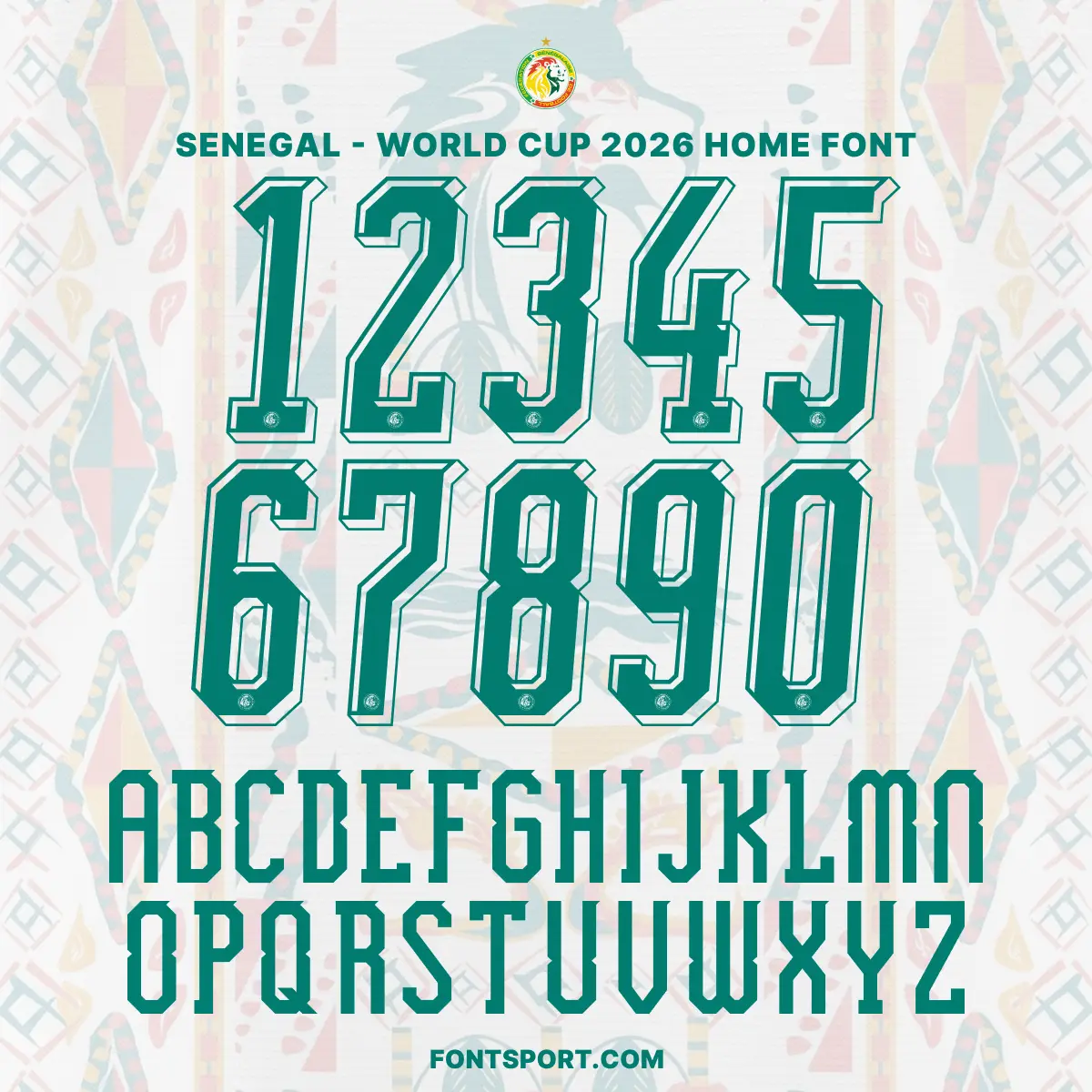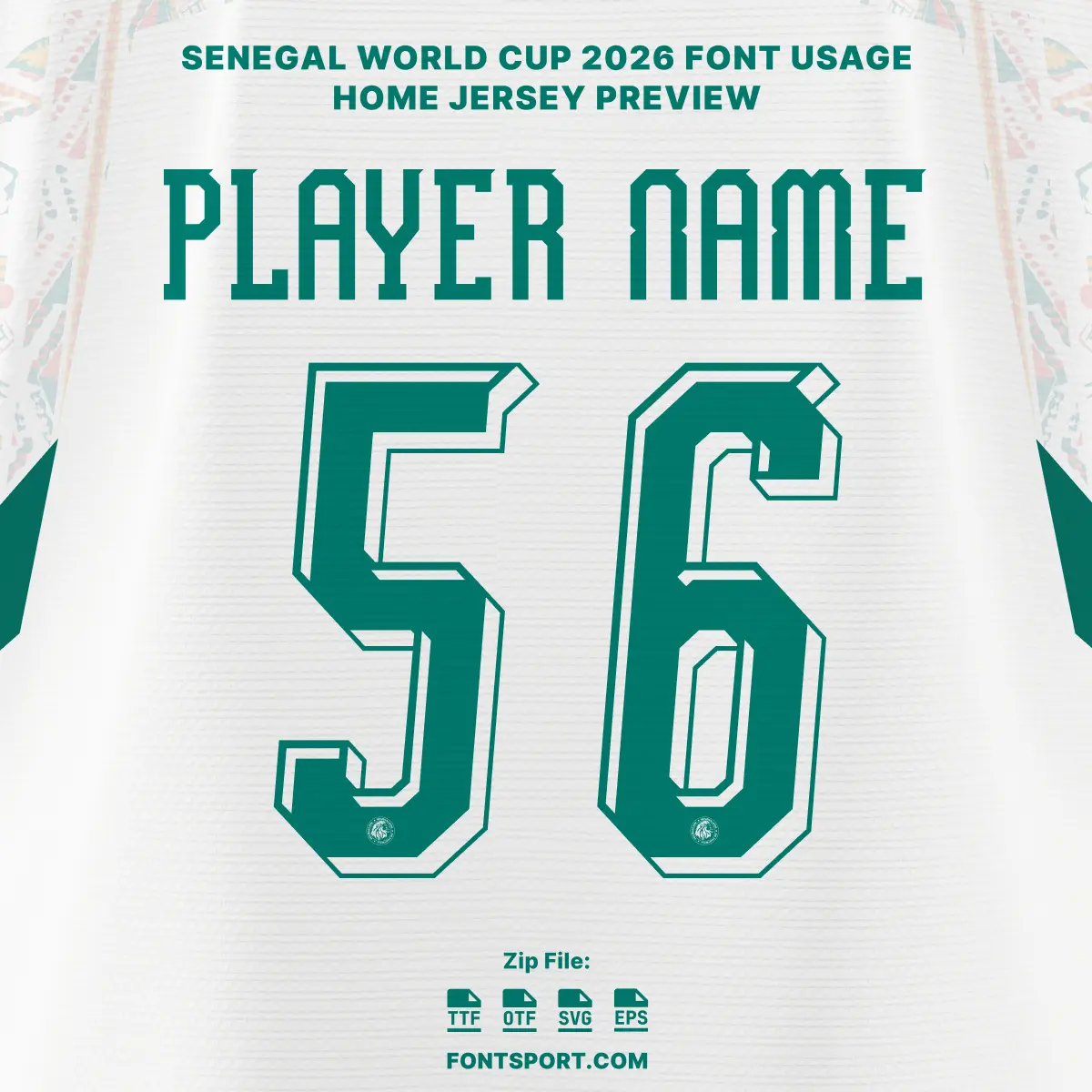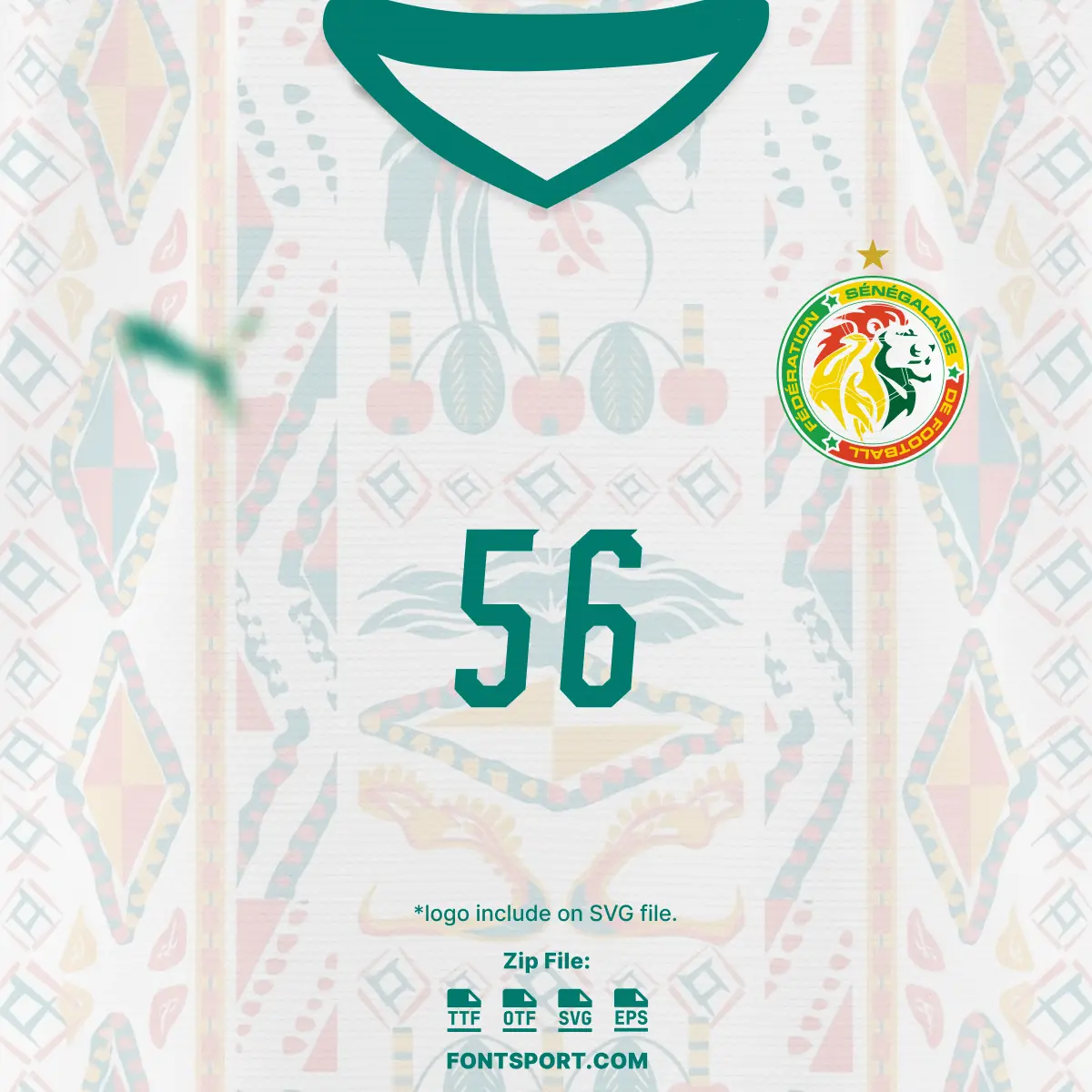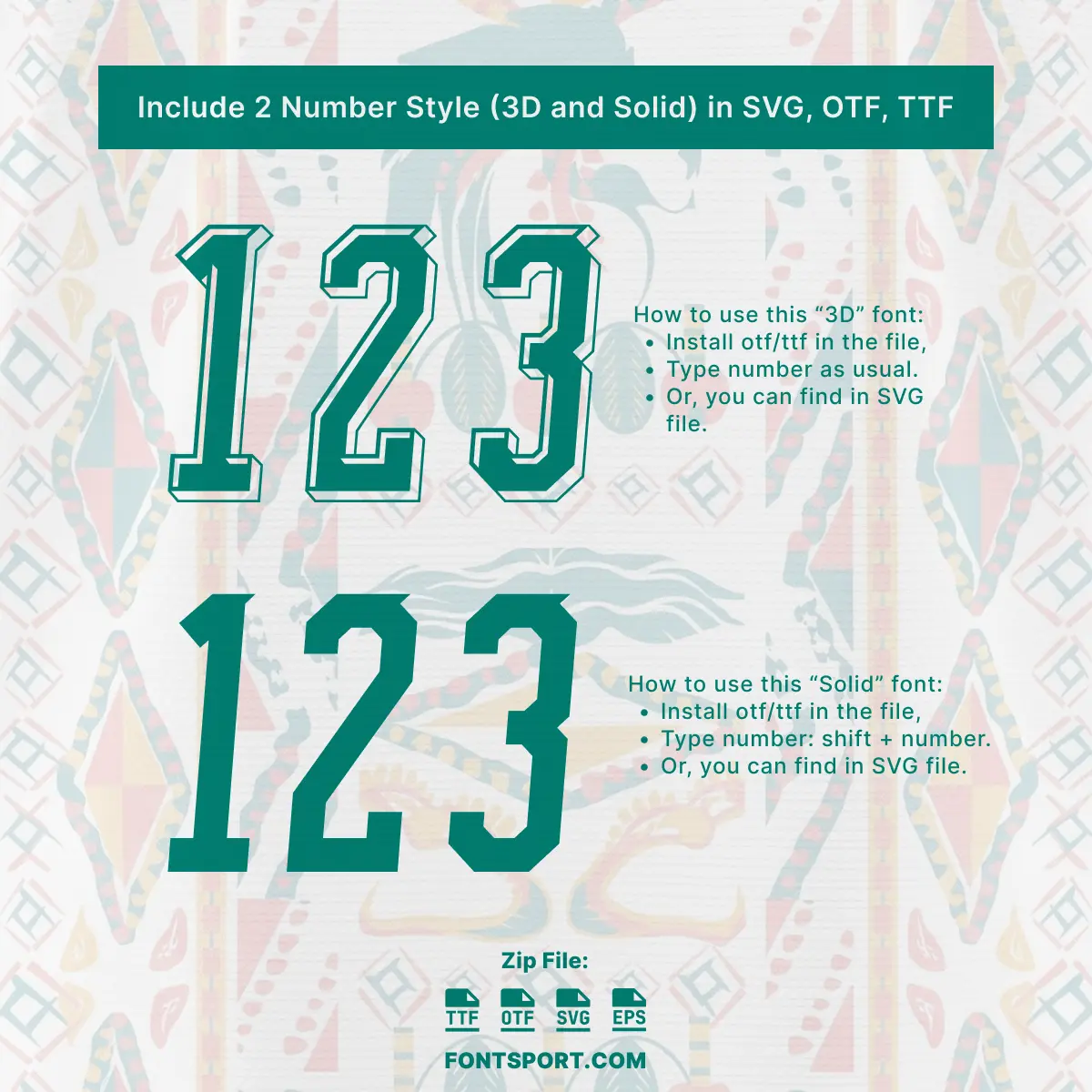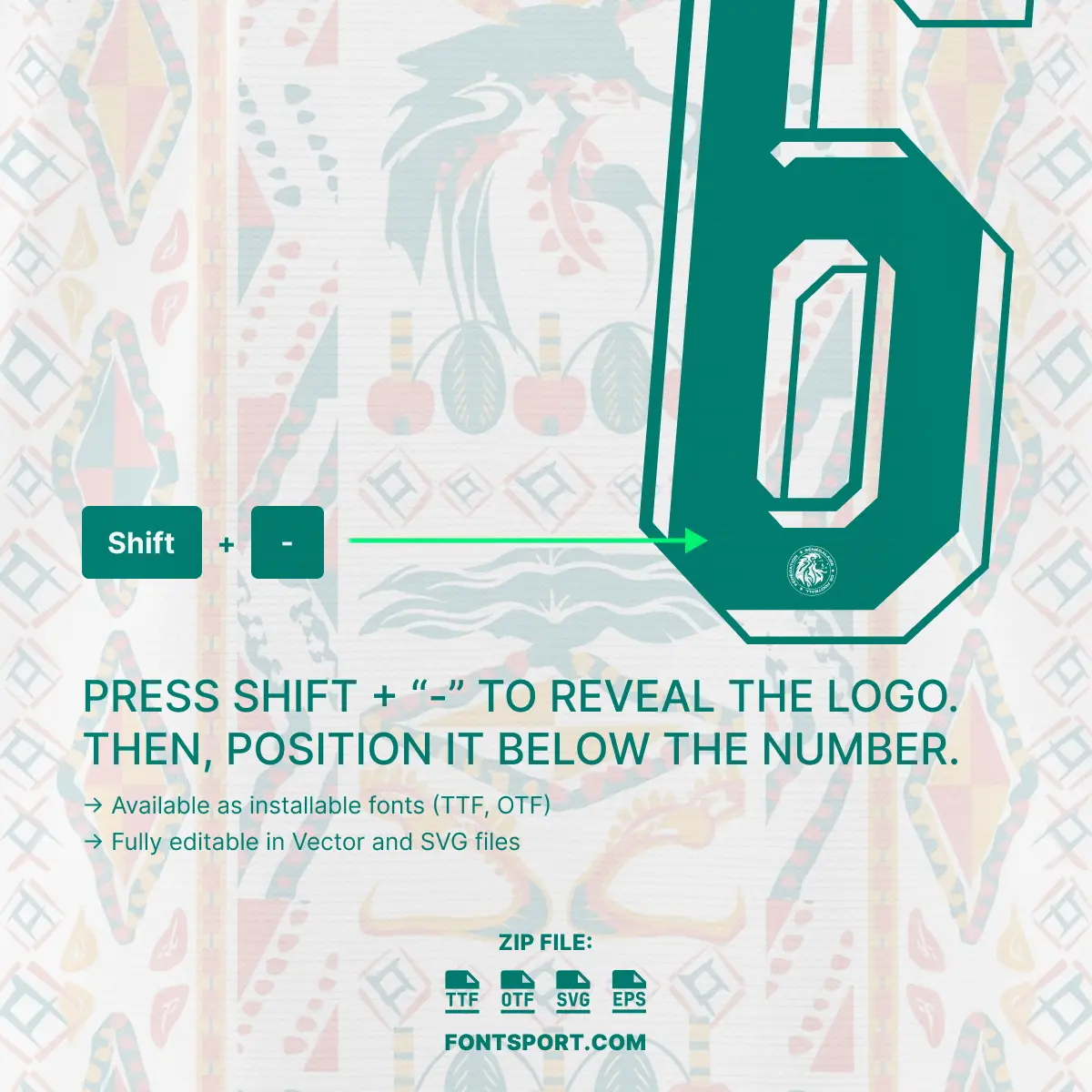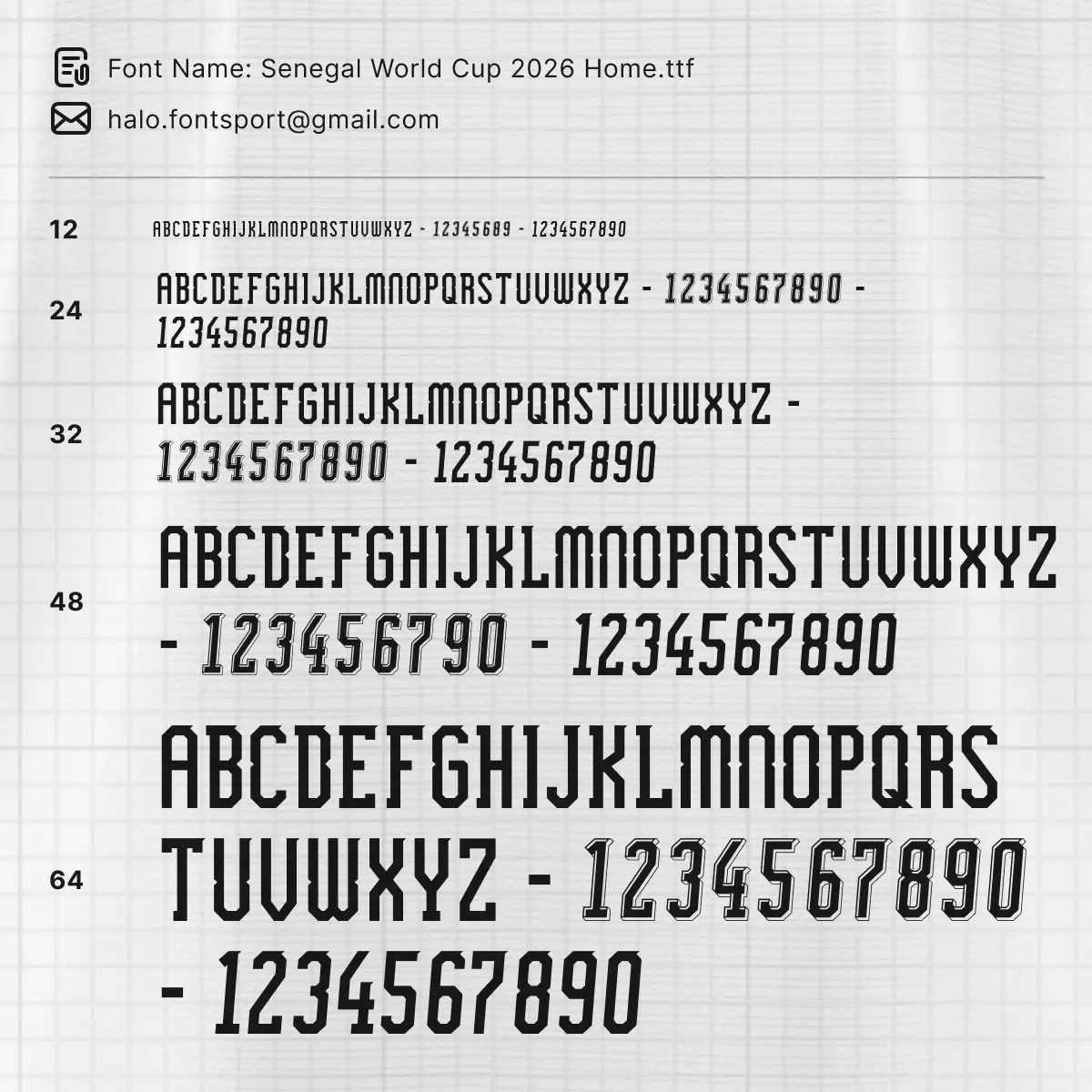
Senegal World Cup 2026 Home Font Kit – Football Typeface
The Senegal World Cup 2026 Home Font Kit captures the “United Spirit” of a nation at the peak of its footballing power. As Senegal enters the 2026 World Cup in North America following a dominant, undefeated qualification campaign, this typeface serves as a bold expression of West African pride. Designed to complement the “traditional textile” patterns of the new PUMA home collection, this font is the perfect visual anchor for the kits worn by icons like Sadio Mané and Nicolas Jackson.
Complete A–Z Character Set: Features the blocky, athletic uppercase letters seen on the backs of the national team, incorporating subtle internal detailing inspired by Senegalese weaving.
Full 0–9 Number Set: Optimized for high-intensity visibility, reflecting the numbers that will lead the Lions through a heavyweight group stage in New Jersey.
This bundle is ideal for creating personalized football kits, striking match-day graphics, or unique merchandise that celebrates the “unwavering pride” of Senegal.
This font kit is built for designers who want to bridge the gap between cultural heritage and elite athletic performance:
Textile-Inspired Detail: The typography is part of a landmark design that pays tribute to Senegal’s history of craftsmanship, with a white base layered with intricate tonal patterns.
Bespoke PUMA Aesthetic: Specifically designed to work with the “Teranga White” palette and the national flag accents of green, yellow, and red.
Optimized for Apparel: An ideal font for jersey printing, sports branding, and team uniforms that require a “clean and structured” appearance.
Versatile Design Asset: Use it as a football font for digital match-day banners or a sport font for physical print-on-demand products.